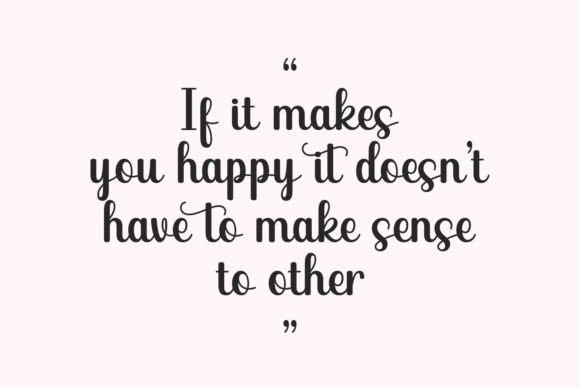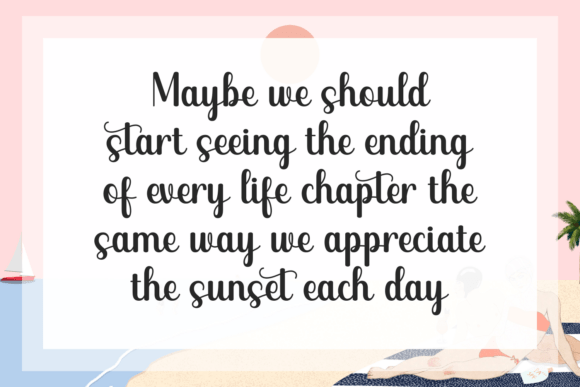
Introduction to Kaytina Font
As a designer, you know the thrill of bringing a creative project to life. The moment when a concept transforms into a tangible, beautiful design is truly exhilarating. But what if you had the perfect tool to elevate your creations to the next level? Enter the Kaytina Font, a stunning handwritten font that’s about to revolutionize your design process.
| 📌 Product Name | Kaytina Font |
| 👤 Author | Dani (7NTypes) |
With its unique, high-quality design and transparent background, the Kaytina Font is the ultimate design resource for any creative project. Whether you’re crafting eye-catching logos, branding, or quotes, this font is sure to add a touch of elegance and sophistication to your work. And the best part? It’s available for a free download, making it an invaluable asset for designers of all levels.
Key Features of Kaytina Font
- High-quality, professional font design suitable for various creative projects.
- Designed to be highly legible, with clear and crisp text at resolutions up to 300 DPI.
- Unique, elegant style with a touch of sophistication, ideal for luxury and high-end branding projects.
Honest Review: Kaytina Font
I recently stumbled upon the Kaytina Font, and I must say it’s been a great addition to my design resource library. The high quality of the font is evident, making it a perfect choice for any creative project.
- ✨ Beautifully crafted characters with a unique flair
- ✨ A wide range of languages supported, making it a versatile option
- ⚠️ Limited font weight options, which might not be ideal for all projects
- ⚠️ Some users might find the font a bit too ornate, which can be overwhelming
Overall, I’m quite impressed with the Kaytina Font. It’s a great choice for designers looking for a unique and high-quality font for their creative projects. With its free download and transparent background, it’s definitely worth checking out.
Tips for Getting the Most Out of Kaytina Font
Use Kaytina Font in combination with other design elements, such as images and graphics, to create a visually appealing design. Experiment with different font sizes and styles to add depth and interest to your project. Kaytina Font is a versatile design resource that can be used in a variety of creative projects.
Kaytina Font is commonly used in graphic design, digital art, and print design. It’s also a popular choice for logos, business cards, and other branding materials. With its high-quality design and transparent background, Kaytina Font is a valuable resource for any designer or creative professional.